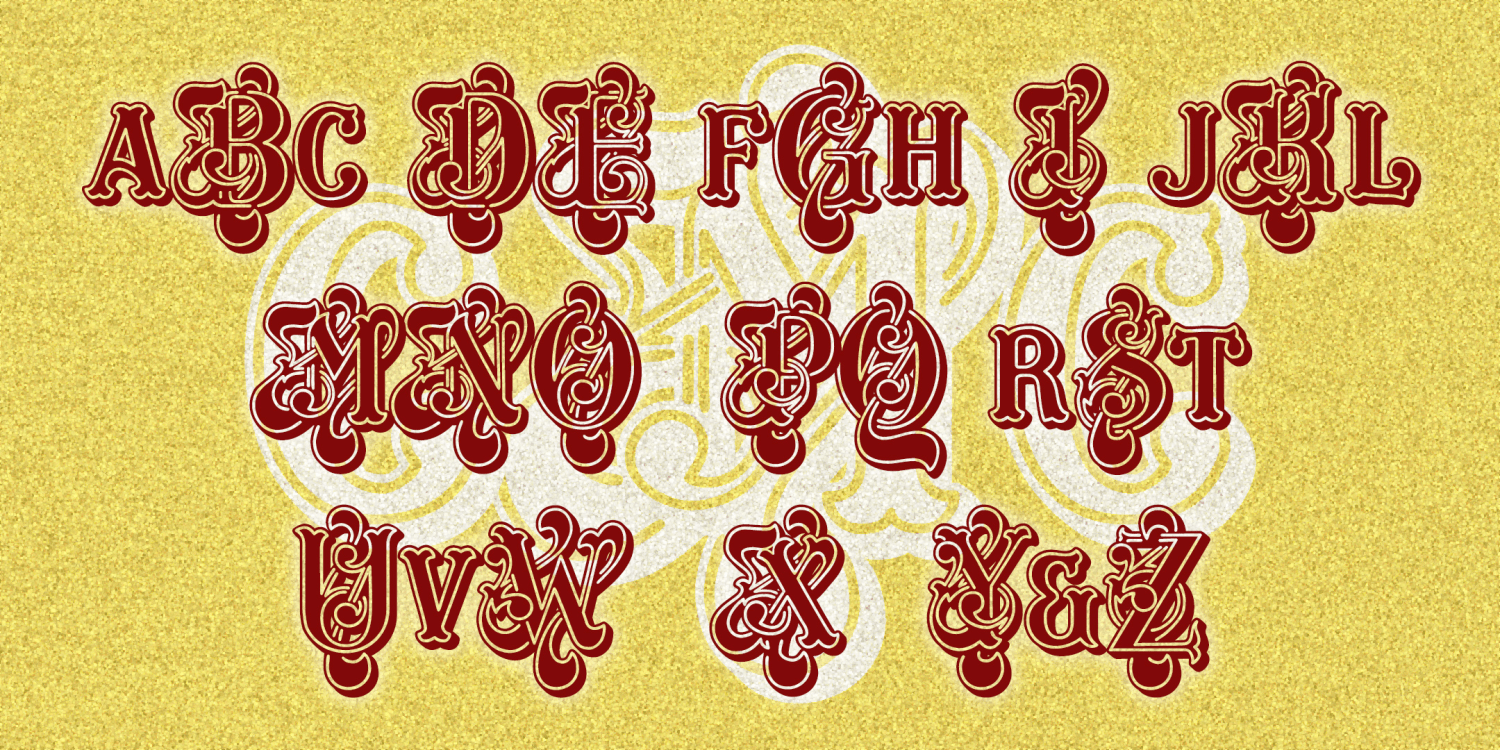
Carousel Monograms
CAROUSEL MONOGRAMS may be my fanciest monogram font yet. With elaborately intertwined swashes and flourishes, a single letter can make a strong statement. The font includes large ornate letters in the A-Z positions, and smaller, less fancy letters in the a-z positions. Mix and match to suit your monogram needs.
The letter forms were inspired by the analog font Masquerade, designed in 1977 by Martin Wait (1942-2012).